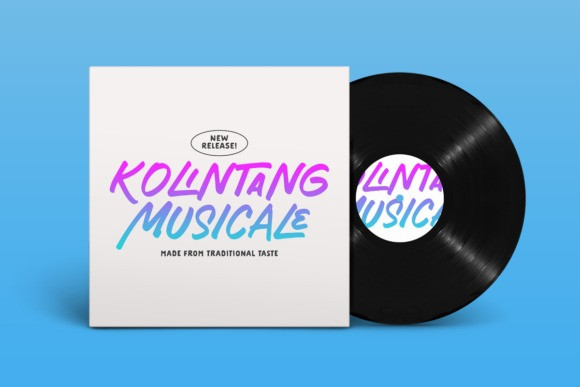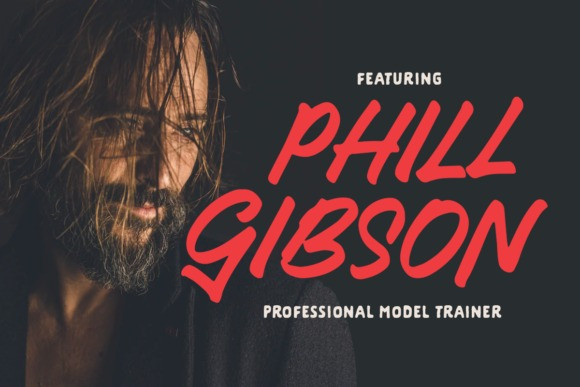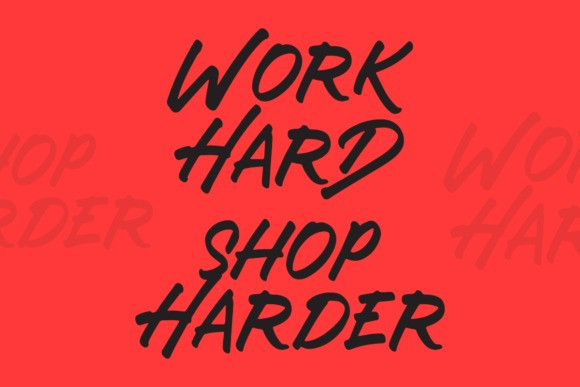
Hubstone Font
Hubstone Brush Font
It’s a freestyle brush font, created with expressive brush strokes, keeping the details and give an eye-catchy combination between the uppercase and small caps, also complete with alternates. This type of font perfectly made to be applied especially in logo, and the other various formal forms such as invitations, labels, logos, magazines, books, greeting / wedding cards, packaging, fashion, make up, stationery, novels, labels or any type of advertising purpose.